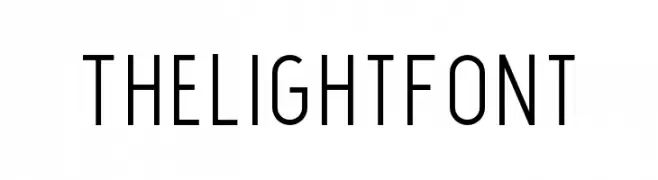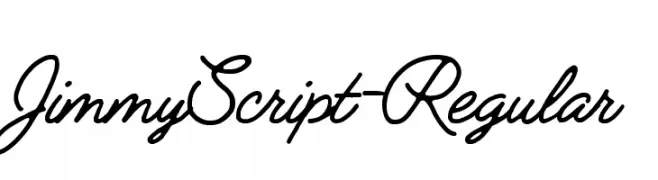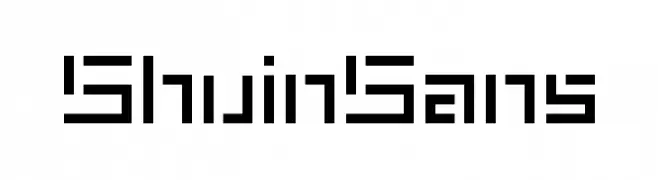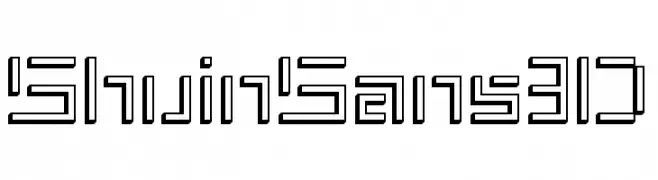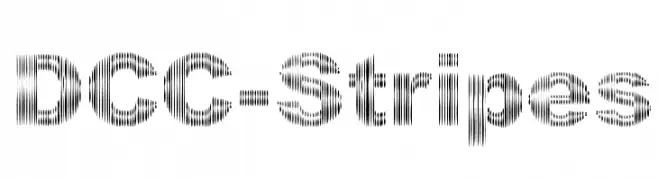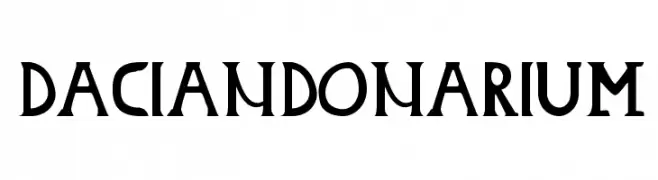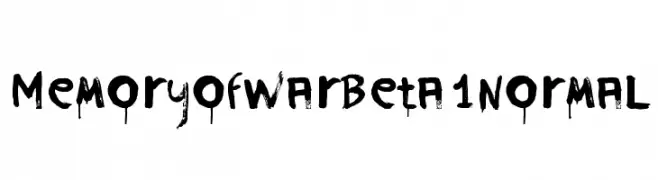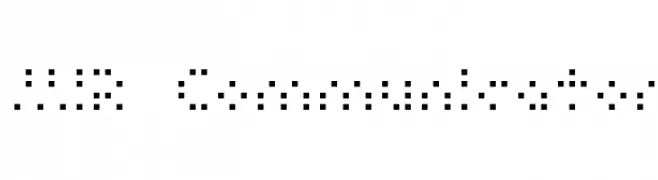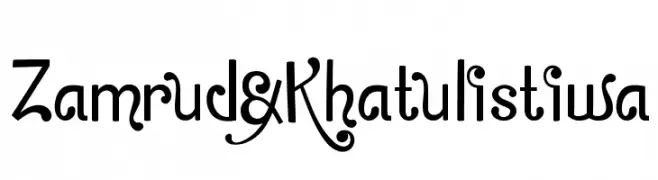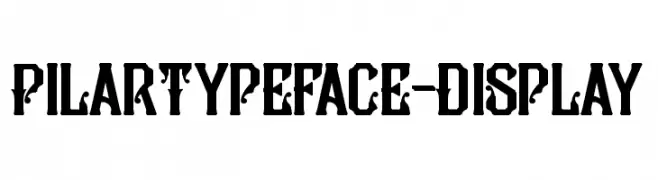
( Skyhaven Fonts - fonts.plph.co )
A modern, geometric font with bold uppercase letters and numerals.
( Stud Stud )
A bold, playful handwritten font with thick strokes and rounded edges.
( Sven Pels - www.svenpels.com )
A clean, modern sans-serif font with a geometric structure and consistent stroke weight.
( Tom Chalky - tomchalky.com/ )
A flowing, cursive script font with interconnected characters and a bold presence.
( Treize grammes - 13g.fr/ )
A geometric, futuristic font with angular strokes and a modern aesthetic.
( Vladimir Nikolic - www.coroflot.com/vladimirnikolic )
A bold representation of Braille, a tactile writing system for the visually impaired.
( Wellinton Lenzi - www.wellintonlenzi.com )
A geometric, grid-based font with a modern, digital aesthetic.
( Wellinton Lenzi - www.wellintonlenzi.com )
A futuristic 3D outline font with geometric shapes and a modern aesthetic.
( Ydhra Studio - creativemarket.com/ydhra )
A bold, flowing script font with elegant curves and smooth strokes.
( dccanim - Draghia Cornel - dccanim.deviantart.com )
A bold, striped font with high contrast and a modern, decorative style.
( tudy1311 - Tudor Banciu - www.tudy1311.com )
A bold, decorative font with historical and artistic influences.
( AARRGGHH! )
A decorative serif font with textured vertical lines and sharp serifs.
( AARRGGHH! )
A bold, fiery-themed decorative font with thick strokes and an energetic style.
( AARRGGHH! )
A bold, decorative font with a unique striped pattern and modern geometric style.
( Adobe - www.adobe.com )
A collection of bold, high-contrast icons and symbols in a modern style.
( Chancleta Power - memoryofwar.com/fonts )
A bold, graffiti-inspired font with a hand-painted, textured style.
( Daniel Plant - www.fontmonster.org )
A tactile writing system using raised dots for visually impaired readers.
( Falexoo - en.fakoo.de )
A tactile writing system using raised dot patterns for the visually impaired.
( Gunarta - naraaksara.com )
An artistic and ornamental font with elegant curves and a sophisticated style.
( Gunarta - naraaksara.com )
A whimsical and decorative font with playful curls and swirls.
( Ilhamherry )
A bold, decorative typeface with intricate flourishes and sharp angles.
( Listemageren - listemageren.dk/fontarkiv/ )
A bold, decorative font with a three-dimensional shadow effect.
( Listemageren - listemageren.dk/fontarkiv/ )
A modern, hollow, geometric font with bold outlines.
( Marc Clancy - www.marcclancy.com/ )
A bold, italic font with a futuristic and dynamic style.
( Marc Clancy - www.marcclancy.com/ )
A bold, modern font with a futuristic and geometric design.
( Mawhrt )
A bold, modern sans-serif font with tight spacing and strong visual impact.
( Michael D. Adams - www.triskele.com/roadgeek-fonts/ )
A modern, geometric sans-serif font with clean lines and excellent legibility.
( Michael D. Adams - www.triskele.com/roadgeek-fonts/ )
A modern, highly legible sans-serif font ideal for signage and clear communication.
( Miljkovic - akomenepitas.netii.net/ )
A decorative font with mechanical and industrial elements, featuring bold geometric shapes and intricate detailing.
( Nicolarts )
A pixelated, futuristic font with a digital, geometric design.
( Nicolarts )
A futuristic, pixelated font with a fragmented, digital appearance.
( Nicolarts )
A futuristic, segmented font with a digital display aesthetic.
( RIzky Irawan - www.rizkyirawan90s.blogspot.com )
A decorative, double-line font with a geometric, architectural style.
A bold, modern sans-serif font with geometric shapes and clean lines.
A playful, cursive script font with interconnected characters and elegant loops.